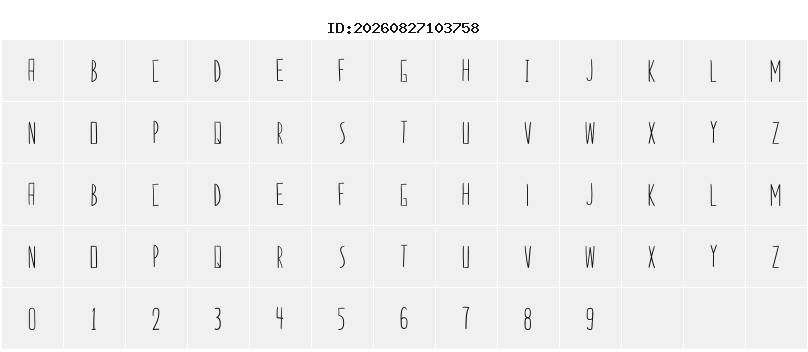
• Font Name: 2colorideas sans
• Designer: Kimberly Geswein
2colorideas sans.ttf is a modern, elegant sans-serif font designed for ultimate readability and visual harmony. Perfect for branding, headlines, web design, and print materials.